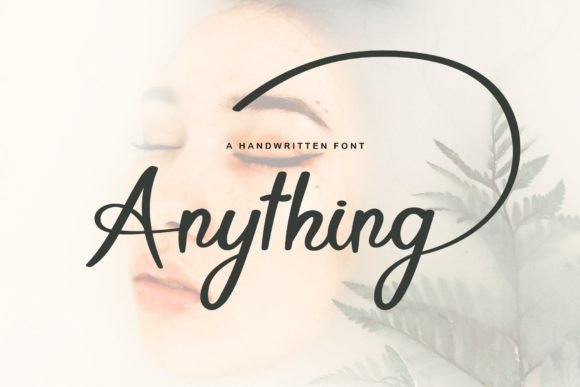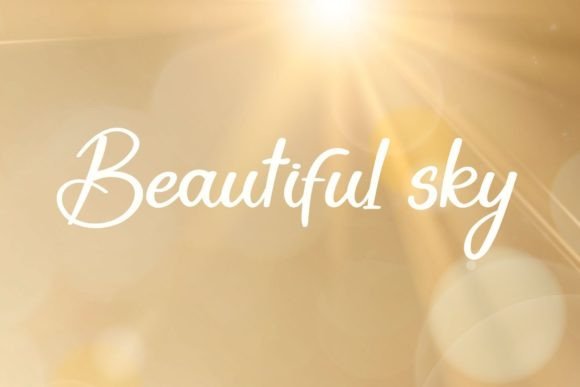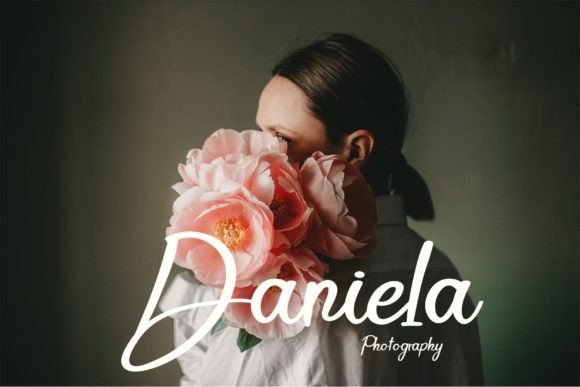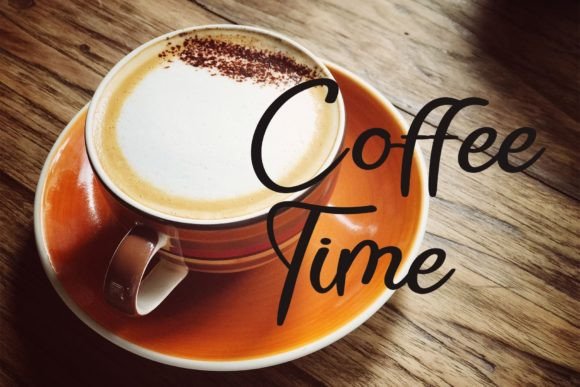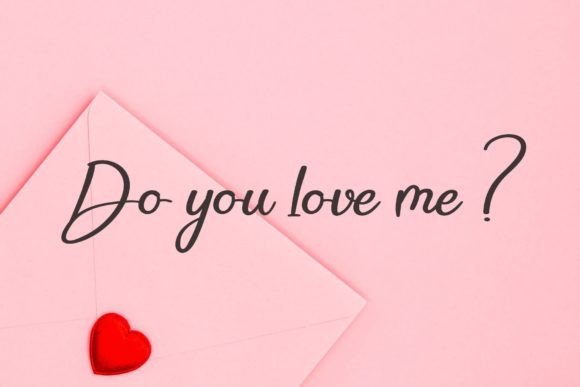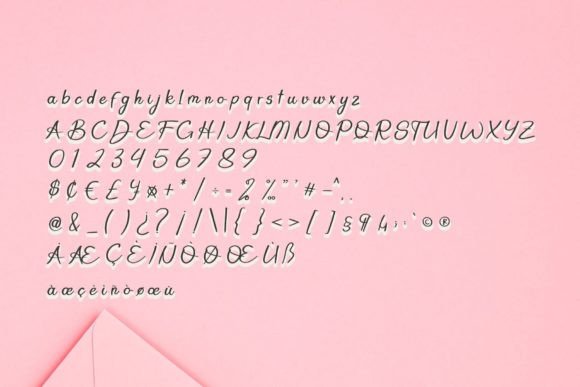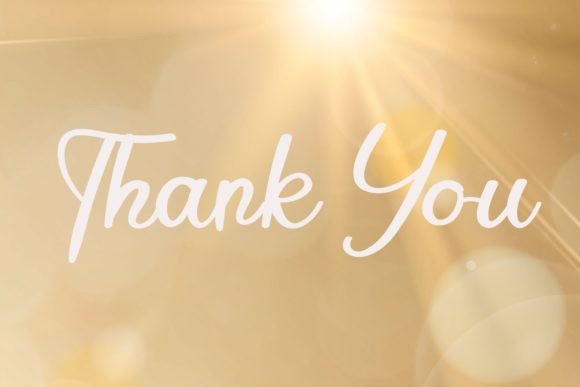
Anything Font
About Anything Font
“Anything” is a font that embodies neatness and beauty, accentuated by an elegant touch that makes it a perfect choice for your favorite creative projects. Its handwritten style adds a personal and authentic feel to any design, making it incredibly versatile and appealing.
The font’s distinct and timeless style sets it apart, making it easy to fall in love with. Its clean and graceful letterforms make it suitable for a wide range of applications, from invitations and greeting cards to posters, social media graphics, logos, and more. “Anything” enhances the visual appeal of your projects, making them truly spectacular.
With “Anything,” you have the opportunity to explore your creativity and create designs that leave a lasting impression. Its versatility allows you to experiment with various layouts, colors, and contexts, ensuring that each project is unique and visually captivating. Whether you’re designing for personal enjoyment or professional purposes, “Anything” provides a canvas for your imagination to run wild.
Imagine using “Anything” for personalized invitations, where its elegant touch adds sophistication to your event announcements. The font’s handwritten charm brings warmth to your words, creating an inviting atmosphere for your guests. In greeting cards, “Anything” transforms ordinary messages into heartfelt expressions, making the recipient feel truly special.
For branding and logo design, “Anything” lends a sense of authenticity and uniqueness to your business identity. Its clean and beautiful appearance makes it memorable, ensuring that your brand stands out in the minds of your audience. Whether you’re creating a logo for a boutique, a cafe, or any other business, “Anything” elevates your visual presence with its elegant style.
In summary, “Anything” is more than just a font; it’s an invitation to unleash your creativity and transform your ideas into extraordinary designs. Its neat and beautiful handwritten style, combined with its elegant touch, makes it a valuable tool for designers and enthusiasts alike. Fall in love with the distinct and timeless charm of “Anything,” and let it inspire you to create spectacular and visually stunning designs that leave a lasting impression.